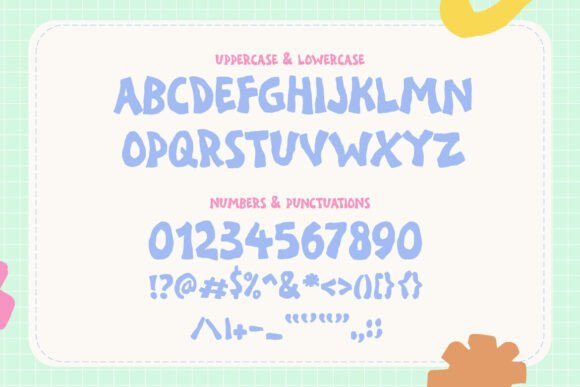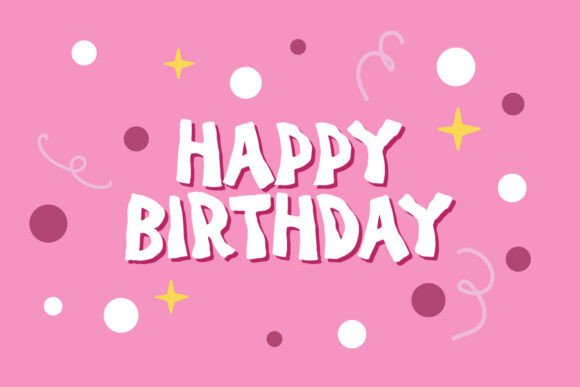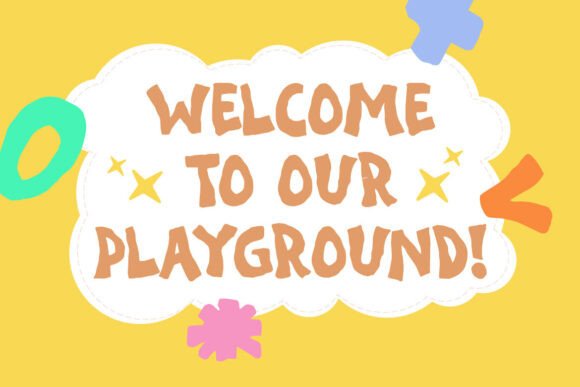
Introduction to Playgo Font
Inspired by my daughter’s doodles, this font is created 100% by hand and traced into vectors and fonts.
I keep the rough effect on the fonts to create a unique and playful theme Perfect for your kid’s theme or playful theme design, Cheers.